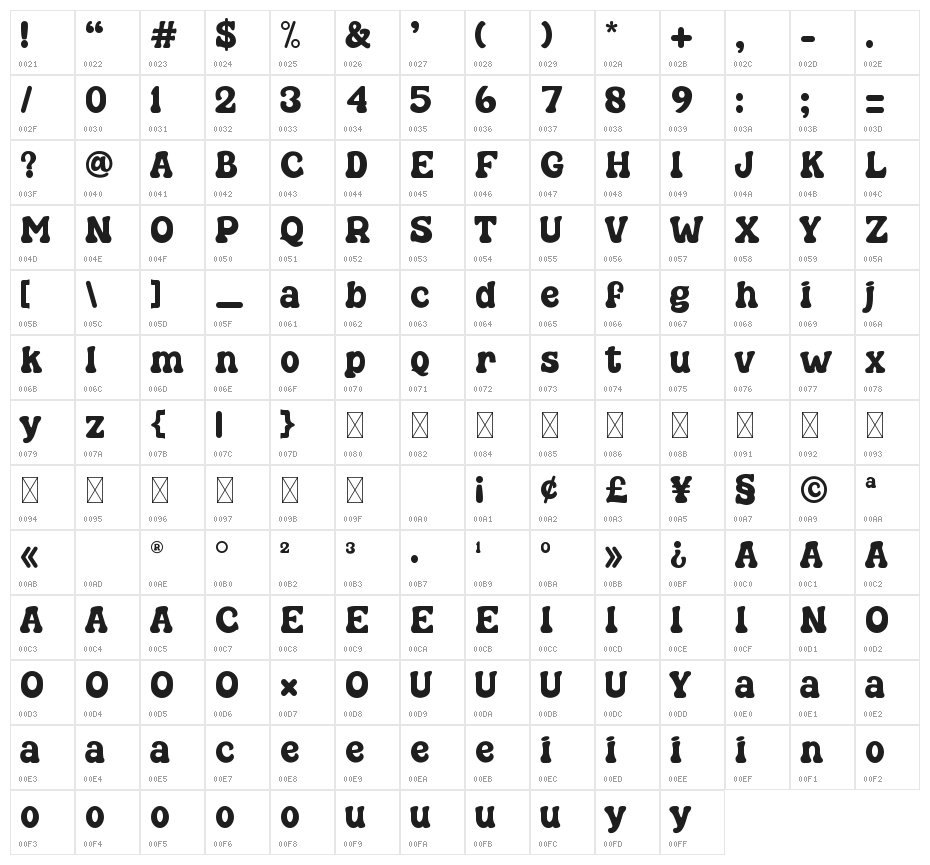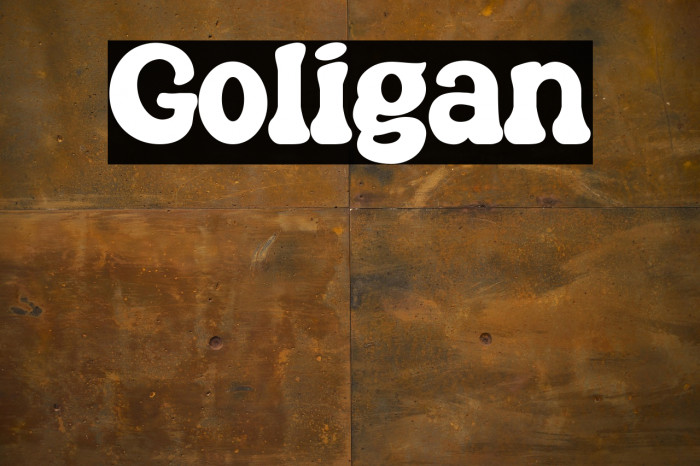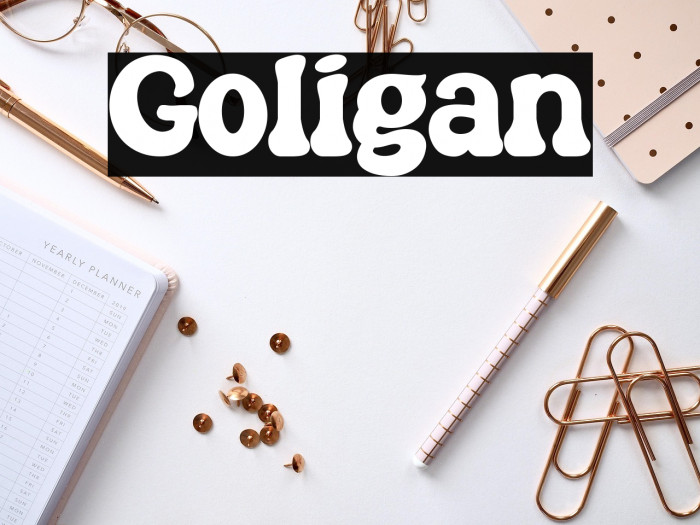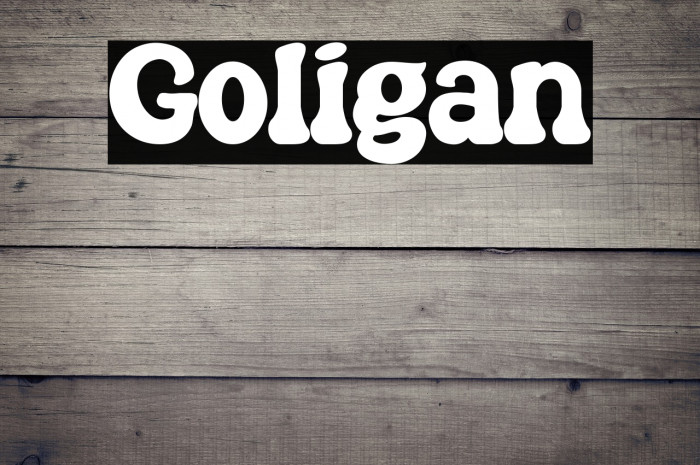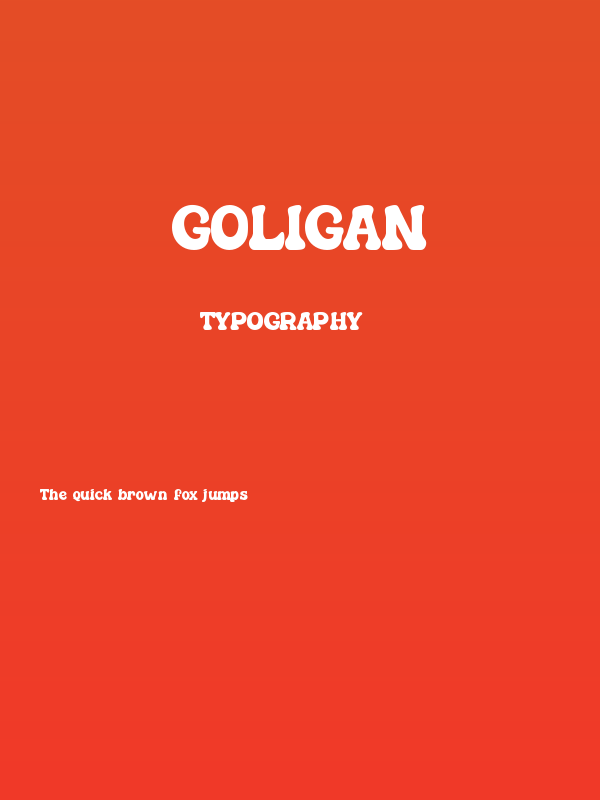
Goligan Font
Goligan Description
This font features a bold and playful design with rounded edges and a bubbly appearance. The characters are thick and have a uniform stroke width, giving them a strong presence. The font's whimsical style is accentuated by its soft curves and slightly exaggerated forms, making it stand out in any design. It maintains a consistent weight throughout, ensuring readability while adding a touch of fun and creativity. The font's unique character shapes make it ideal for projects that require a lively and engaging aesthetic.
| Proposed Projects | Ideal for children's books, playful branding, posters, and creative advertisements. |